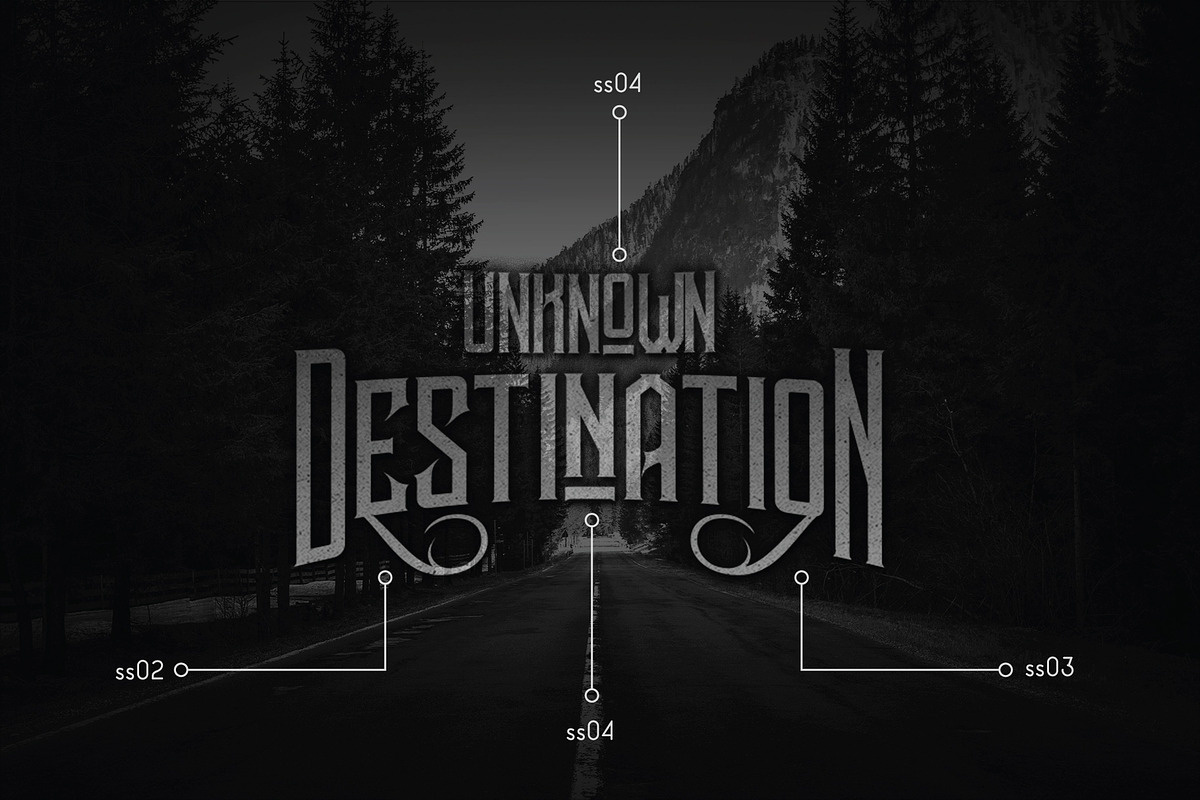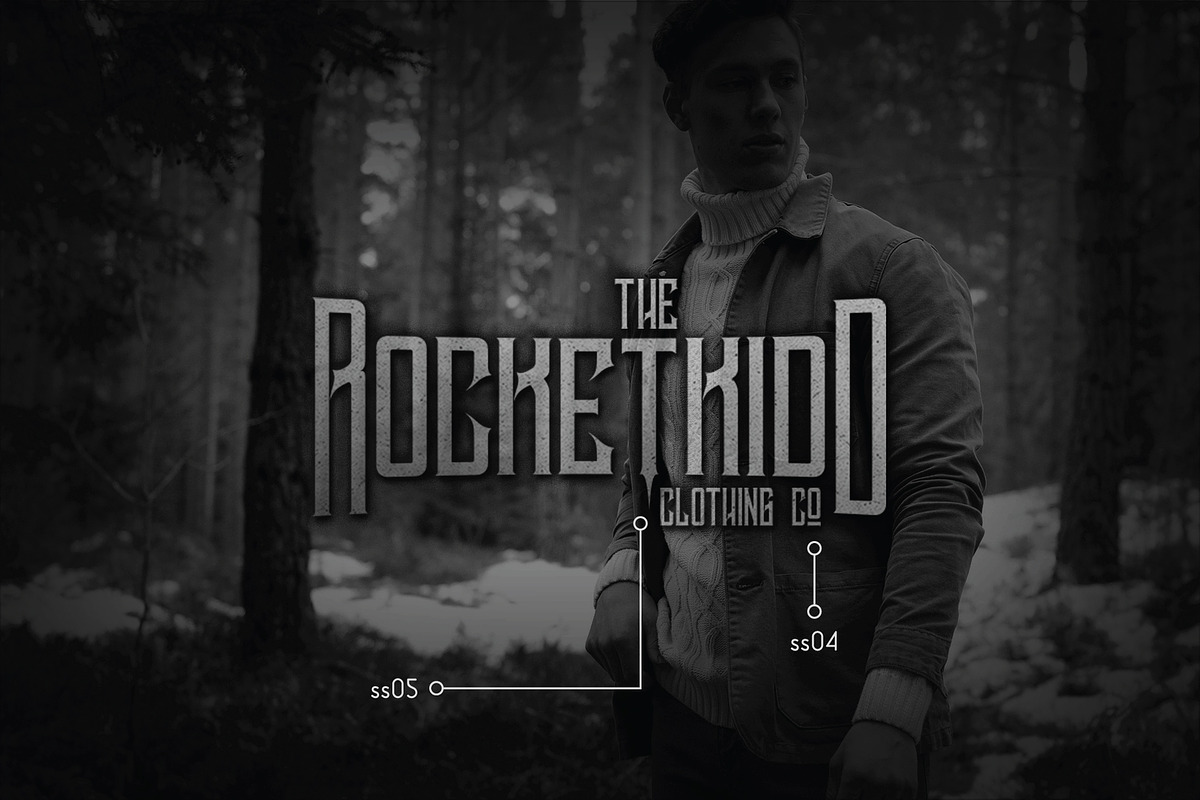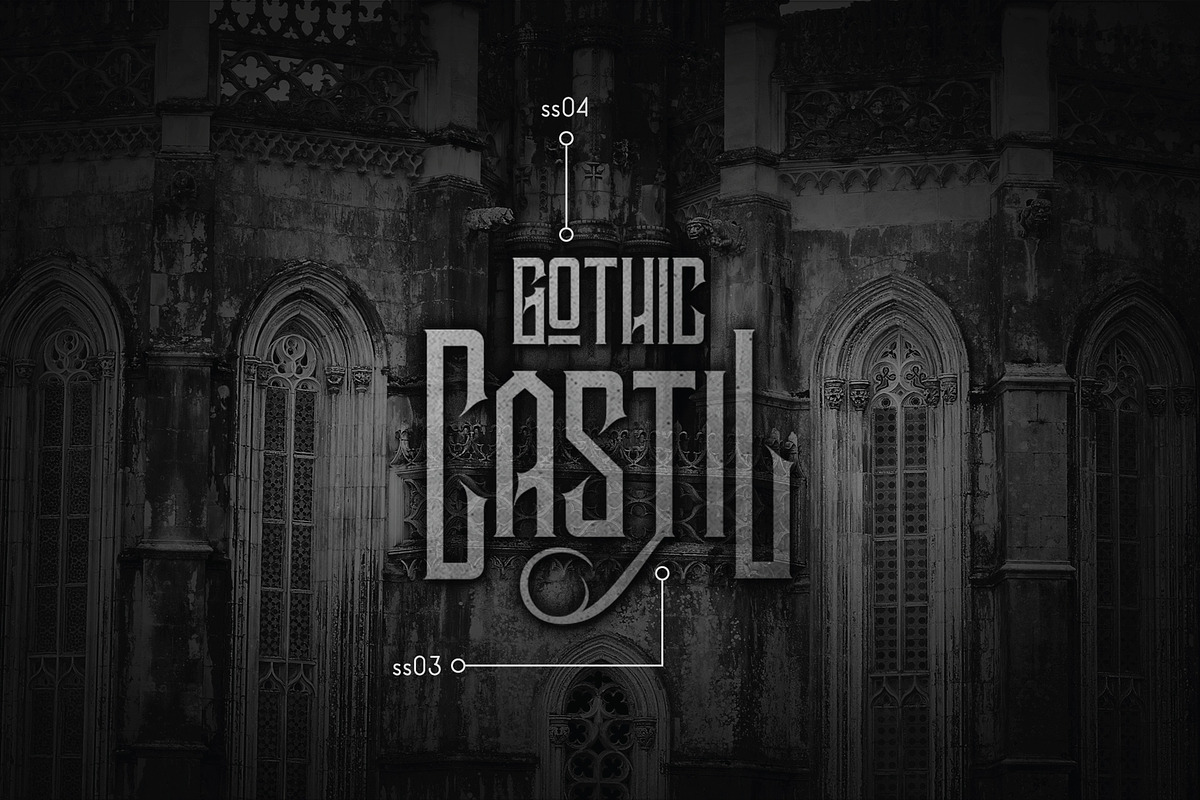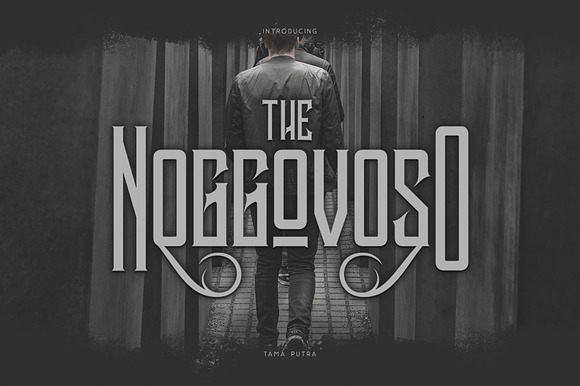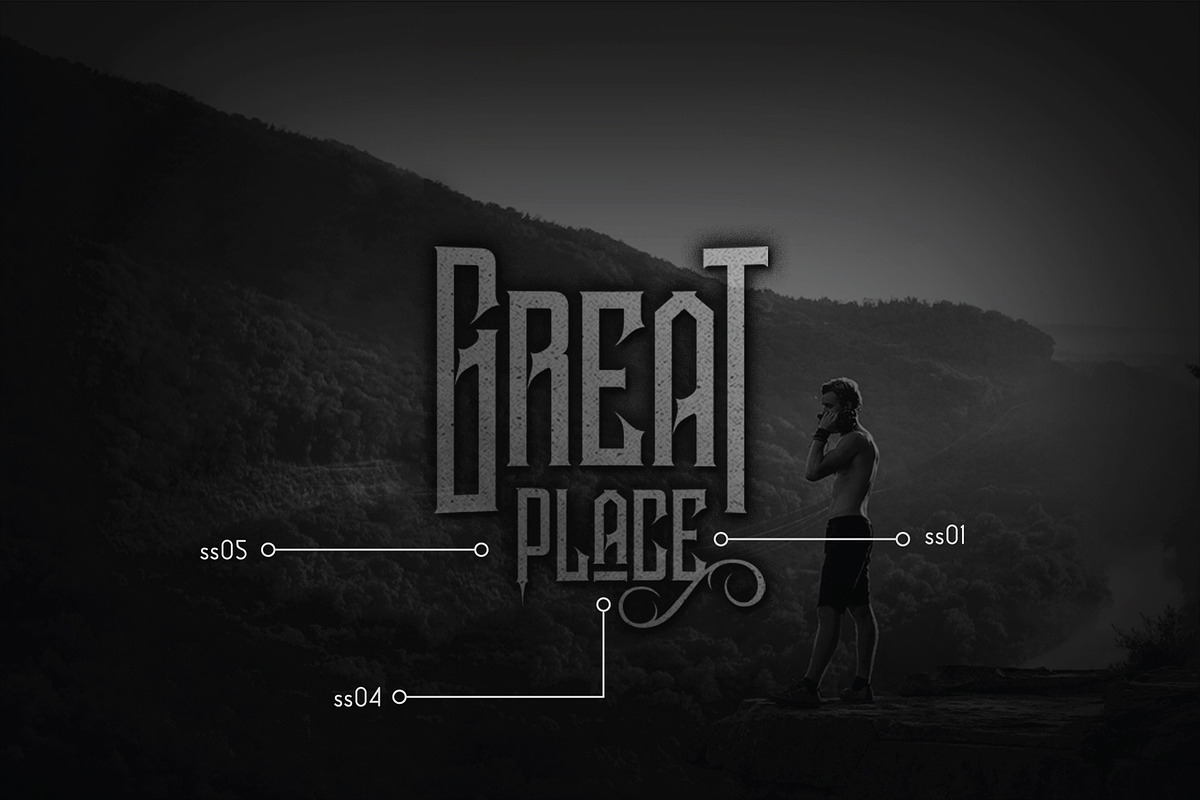
Noggovoso Font
Noggovoso is a typeface inspired from gothic and victorian style.
It includes a full set of uppercase and lowercase letters as well as multi-lingual and currency support, numerals, punctuations, alternates, ligatures and some extra glyphs.
Character Set A-Z (Uppercase & Lowercase)
Accents (Multilingual characters)
ss01, ss02, ss03, ss04, ss05, ss06, ss07
Noggovoso typeface is suitable font for creating beautiful things and many creative work.
Why Noggovoso Font is worth a look
Noggovoso Font by Vacatype Co. fits naturally into Branding, posters, packaging, typography.